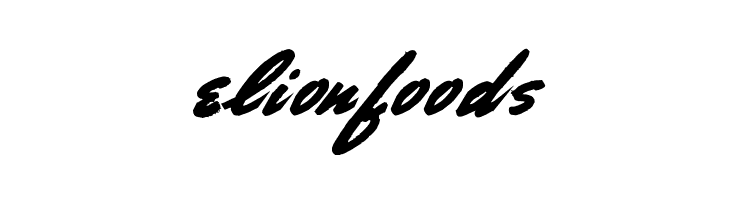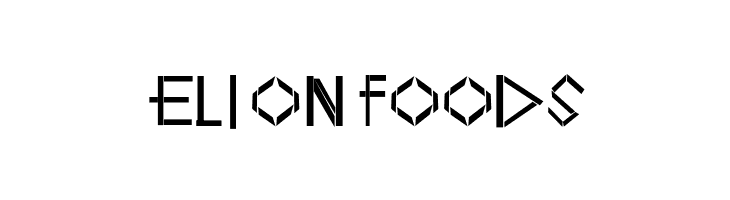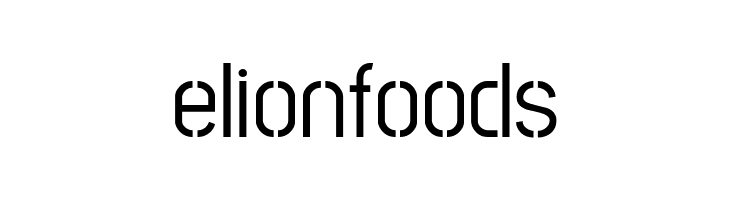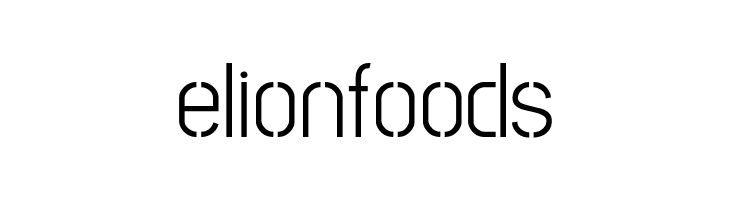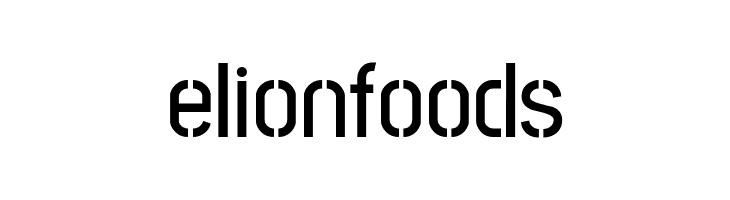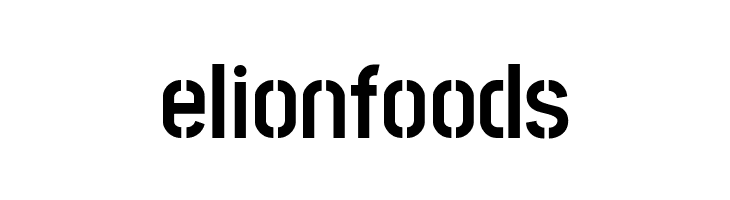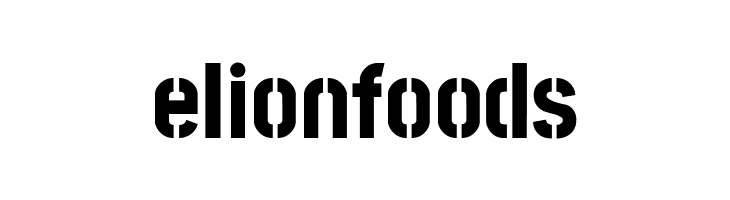
A bold, three-dimensional font with a striking shadow effect.
A clean, minimalist font with thin, uniform lines and balanced spacing.
A bold, modern sans-serif font with a clean and geometric design.
A bold, italicized font with a modern slant and medium contrast.
A sleek, italic font with thin, elongated characters and a modern style.
A thin, elegant serif font with tall, slender characters and subtle serifs.
A whimsical and decorative font with curly, looping strokes and artistic flair.
A whimsical, handwritten font with tall, narrow letters and a playful style.
A playful, balloon-enclosed decorative font perfect for whimsical projects.
A bold, cursive font with dynamic and fluid strokes.
A bold, rounded, and playful font with a chunky appearance.
A bold, three-dimensional sans-serif font with a modern and impactful style.
A bold, three-dimensional block font ideal for impactful headlines.
A bold, three-dimensional block font with a vintage yet modern appeal.
A modern, rounded font with uniform stroke width and geometric influences.
A playful, hand-drawn font with bold outlines and intricate patterns.
A bold, geometric font with a modern and striking design.
A bold, geometric font with a modern, industrial feel.
A modern, geometric sans-serif font with clean lines and uniform stroke width.
A modern, geometric sans-serif font with clean lines and consistent stroke width.
A modern, geometric sans-serif font with clean lines and uniform stroke width.
A bold, geometric font with a modern, industrial style and distinctive cut-out sections.
A bold, geometric stencil typeface with a modern, industrial aesthetic.
A bold, stencil-like font with high contrast and industrial appeal.
A modern, geometric font with clean lines and a minimalist design.
A modern, geometric stencil font with clean lines and sharp angles.
A modern, geometric sans-serif font with clean lines and consistent stroke width.
A modern, geometric stencil font with a semi-bold weight and industrial feel.
A pixelated, geometric font with a retro digital aesthetic.